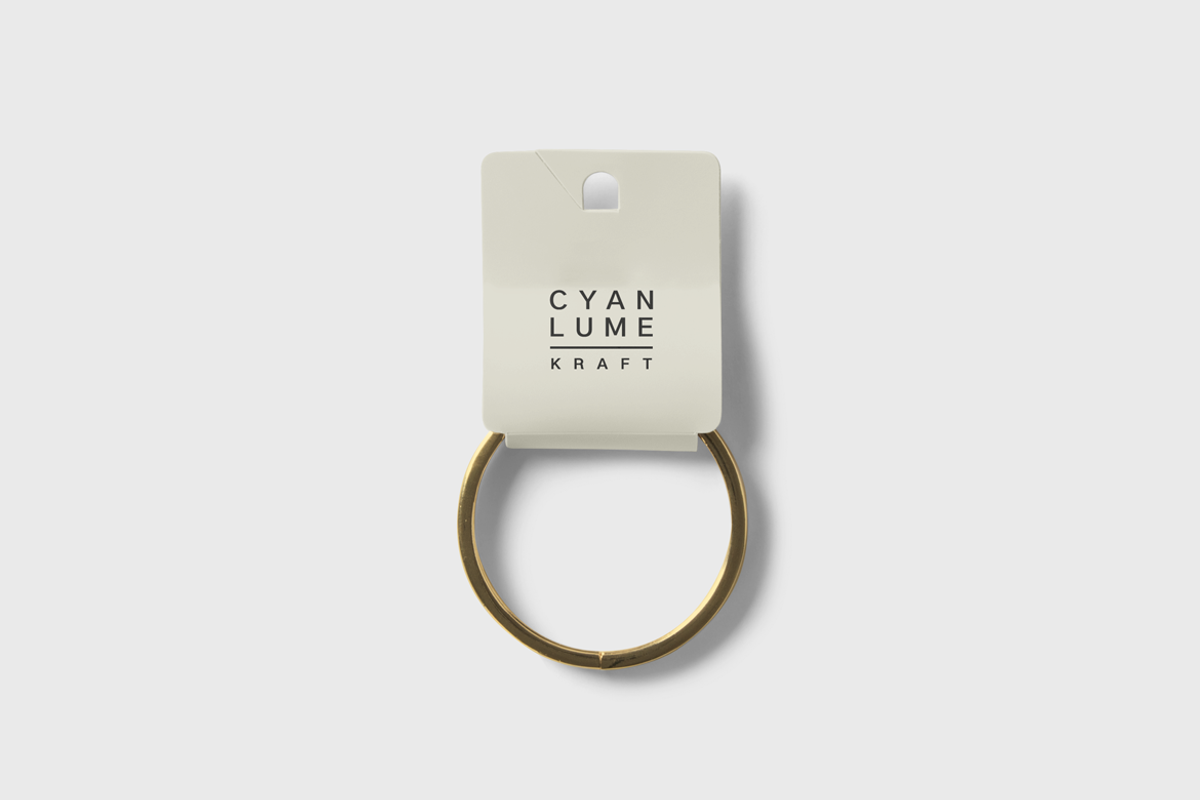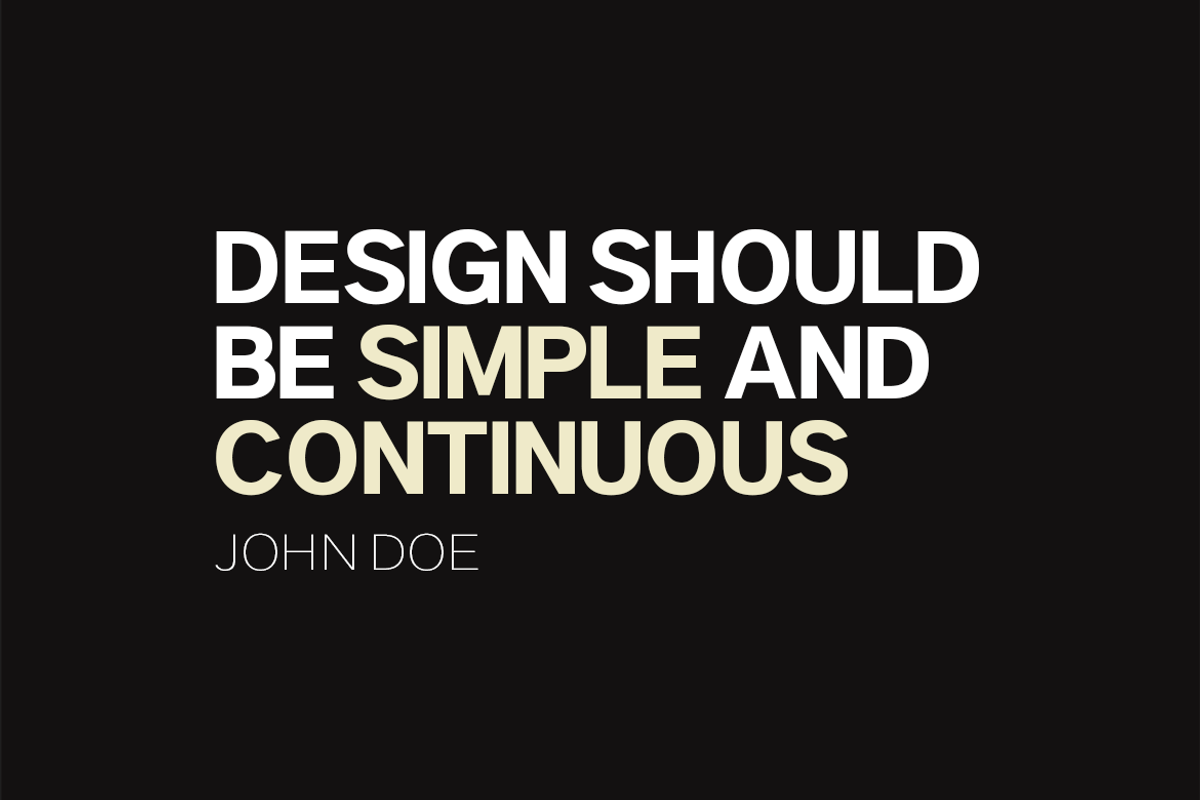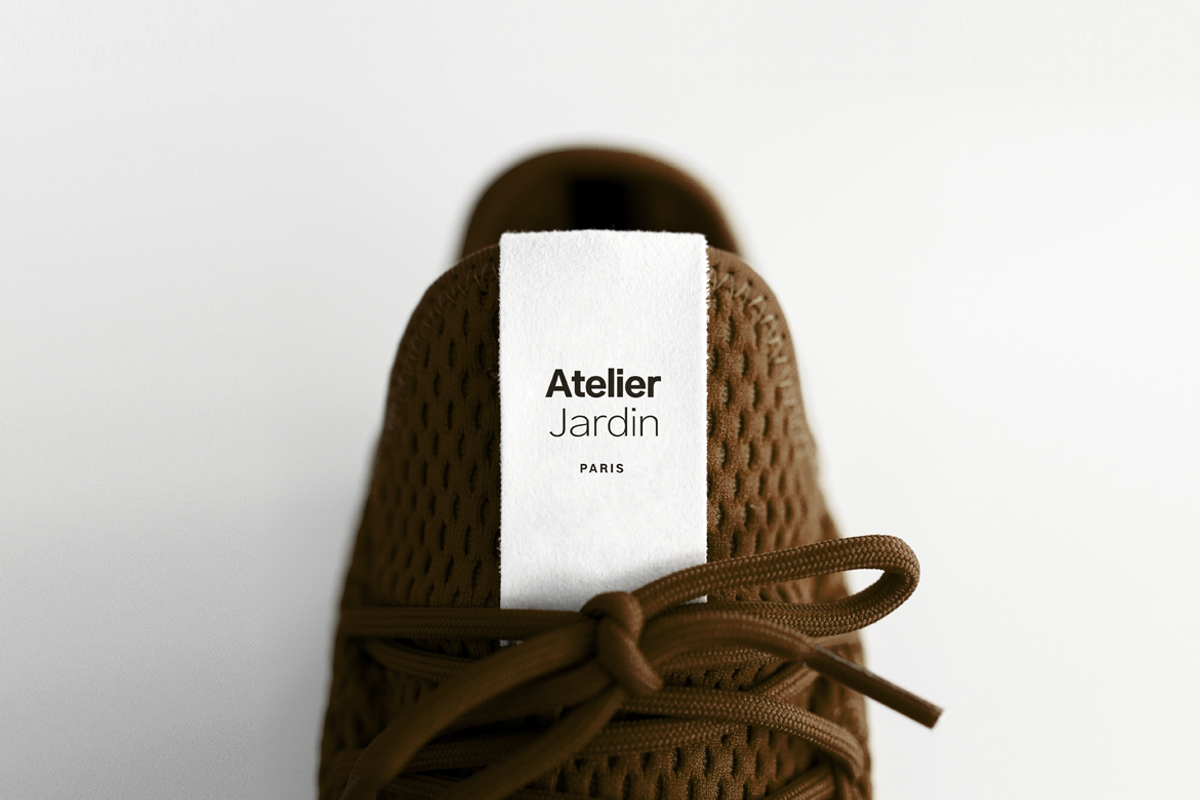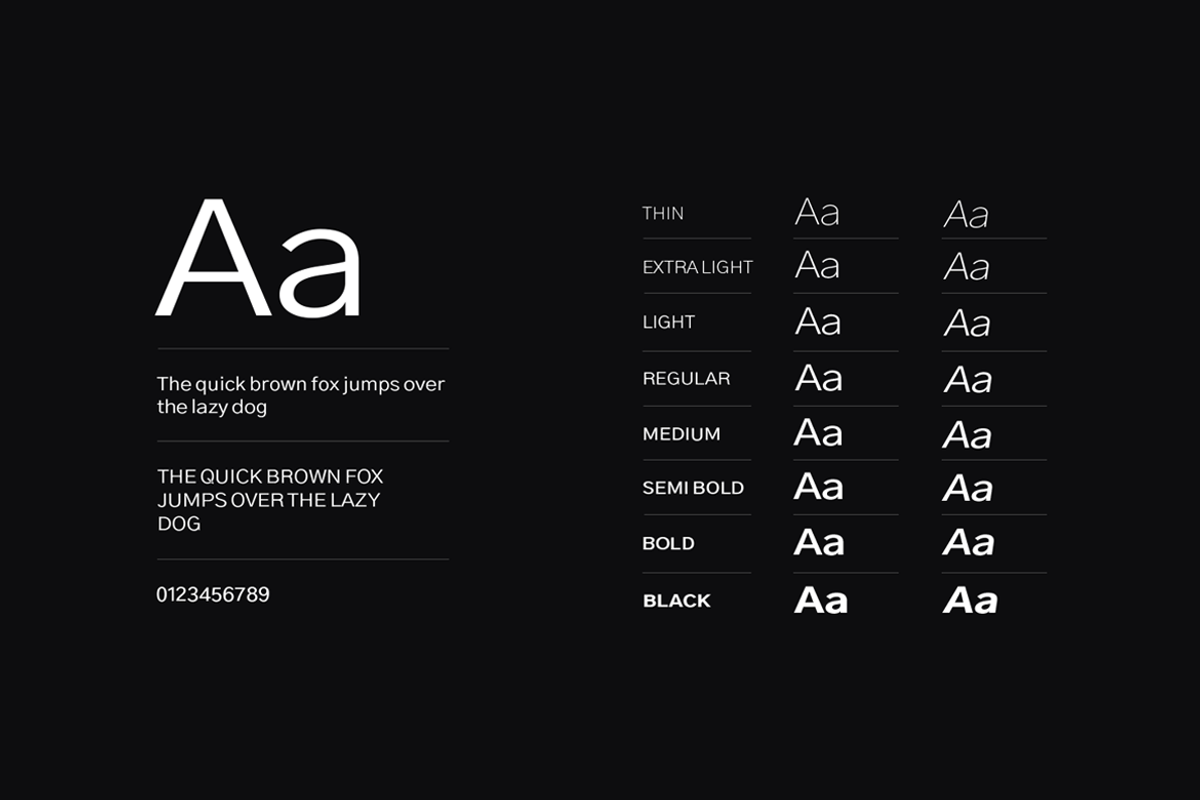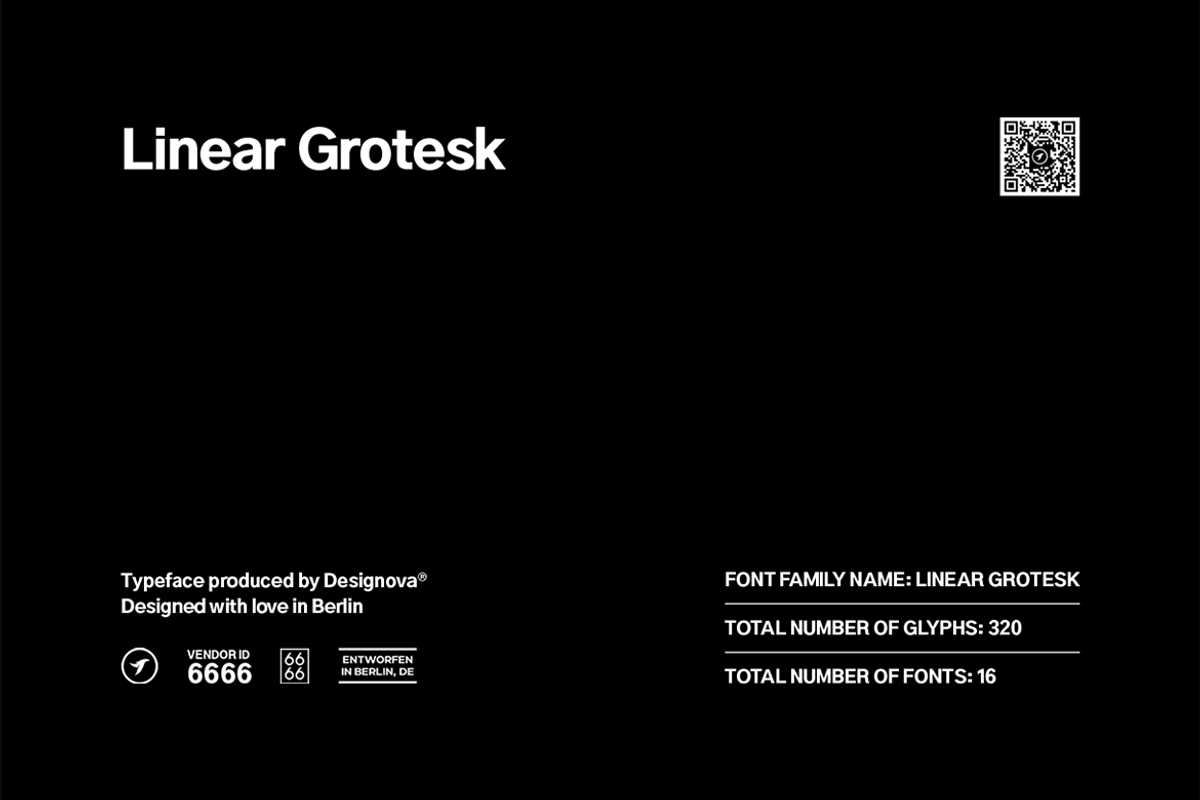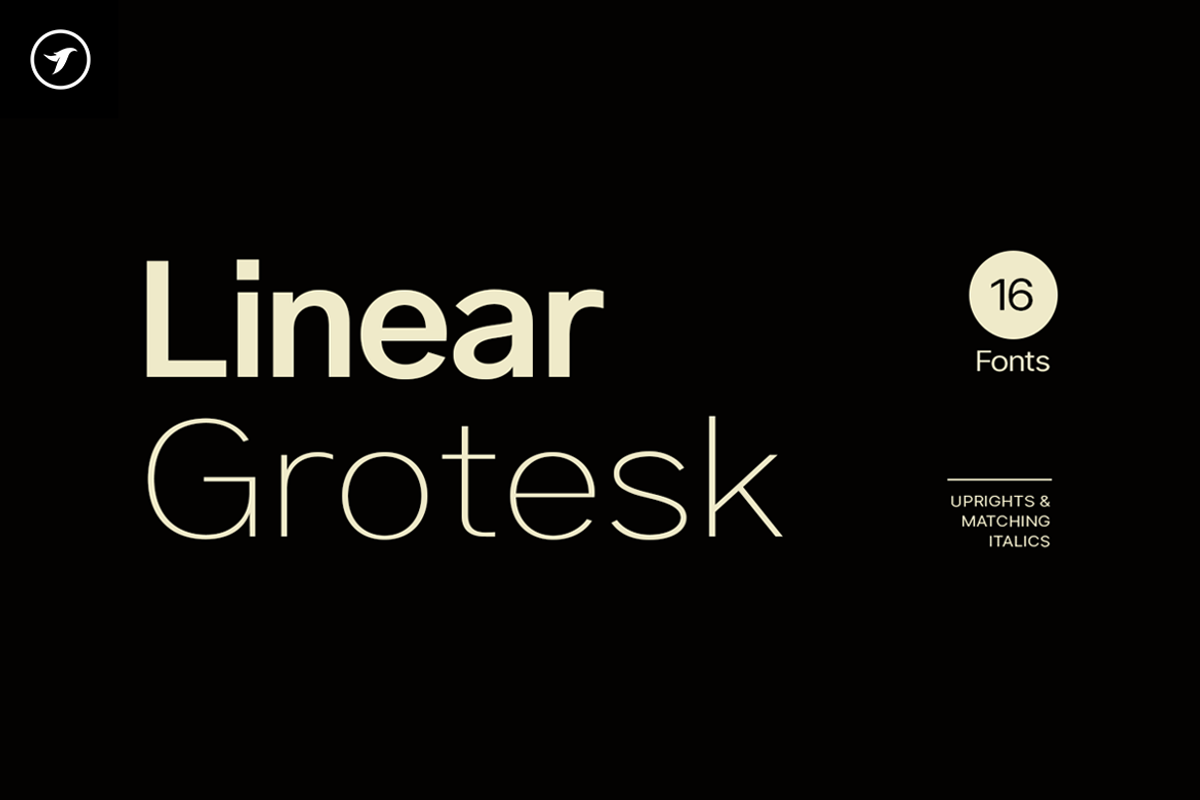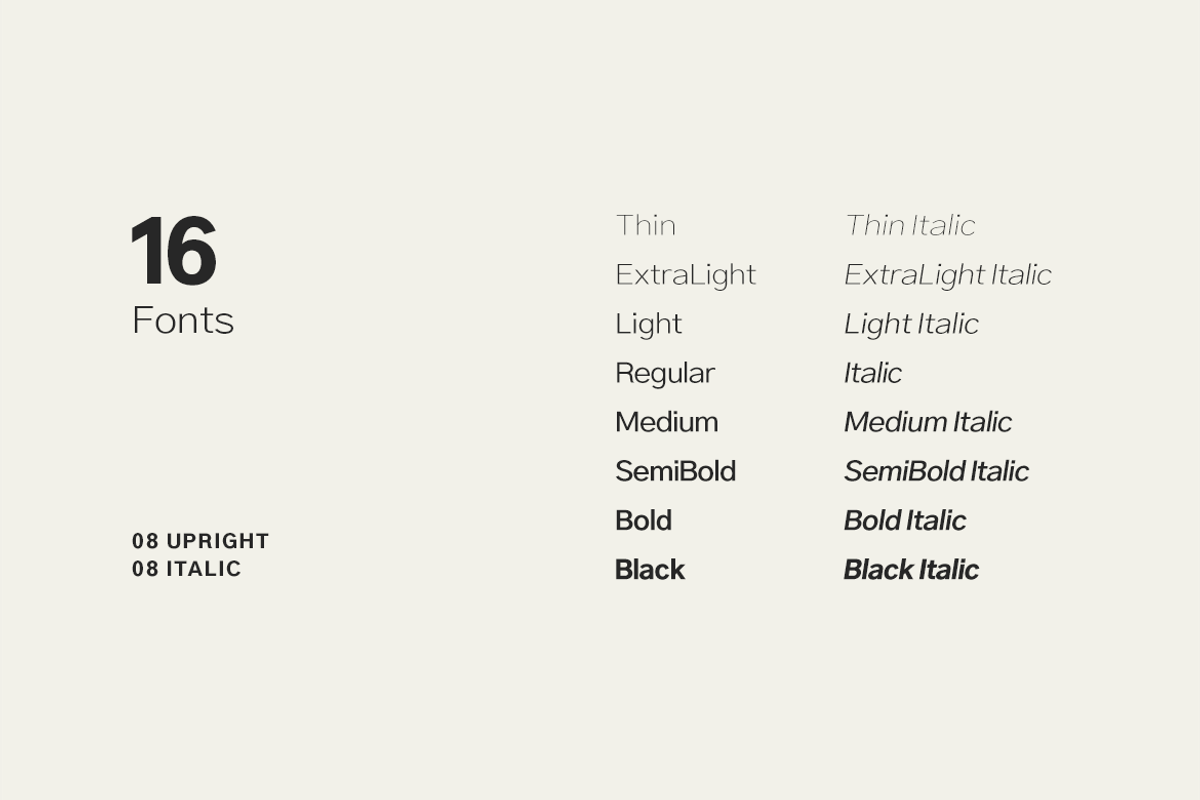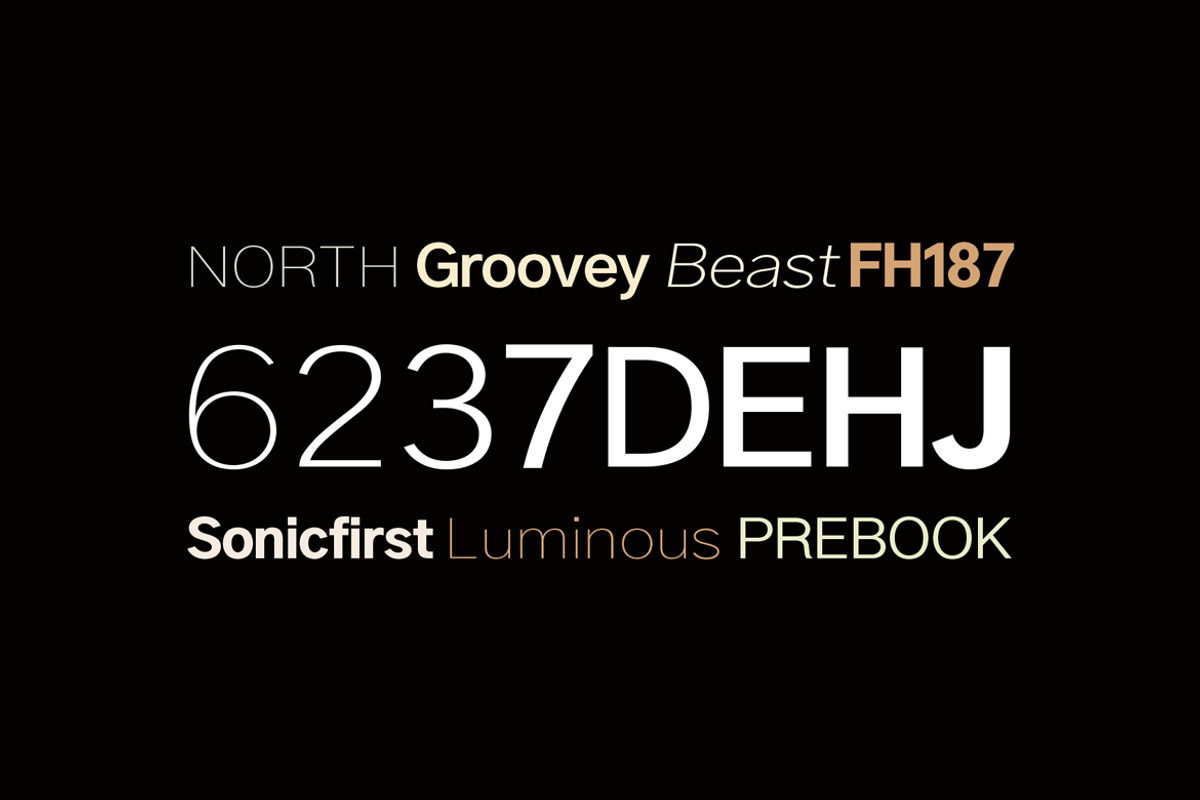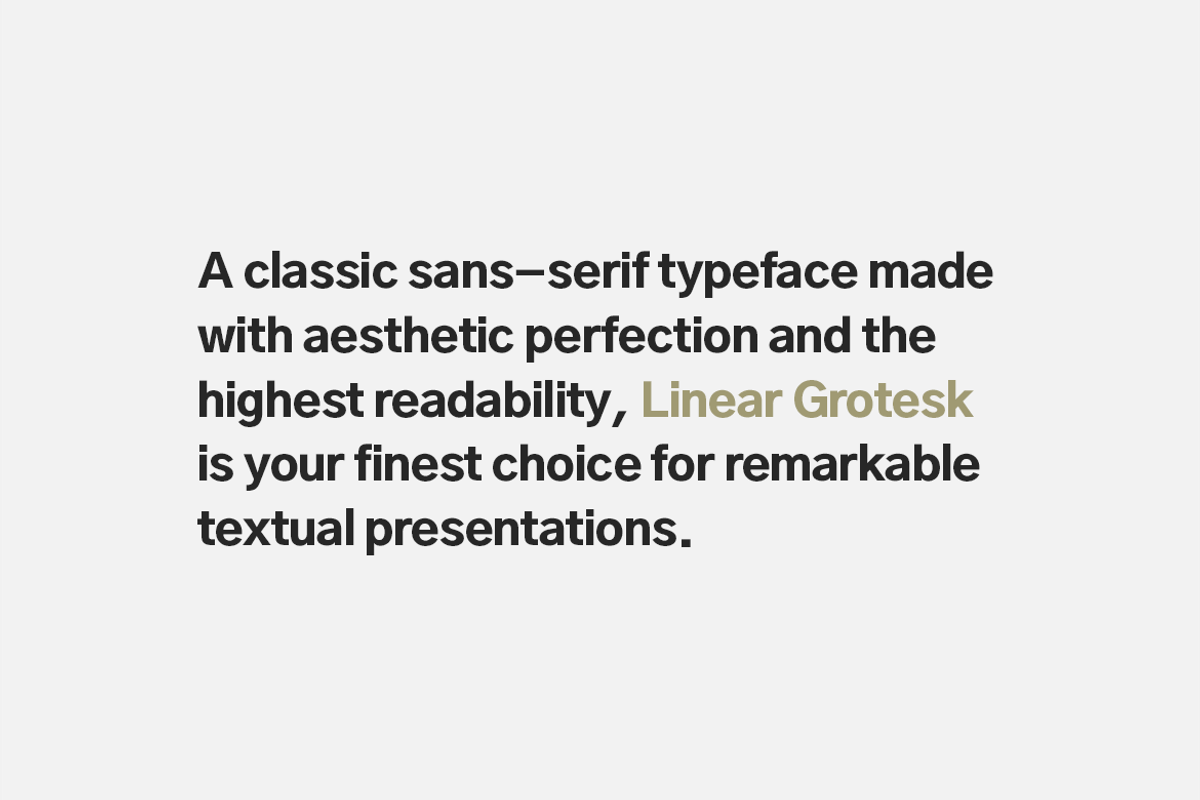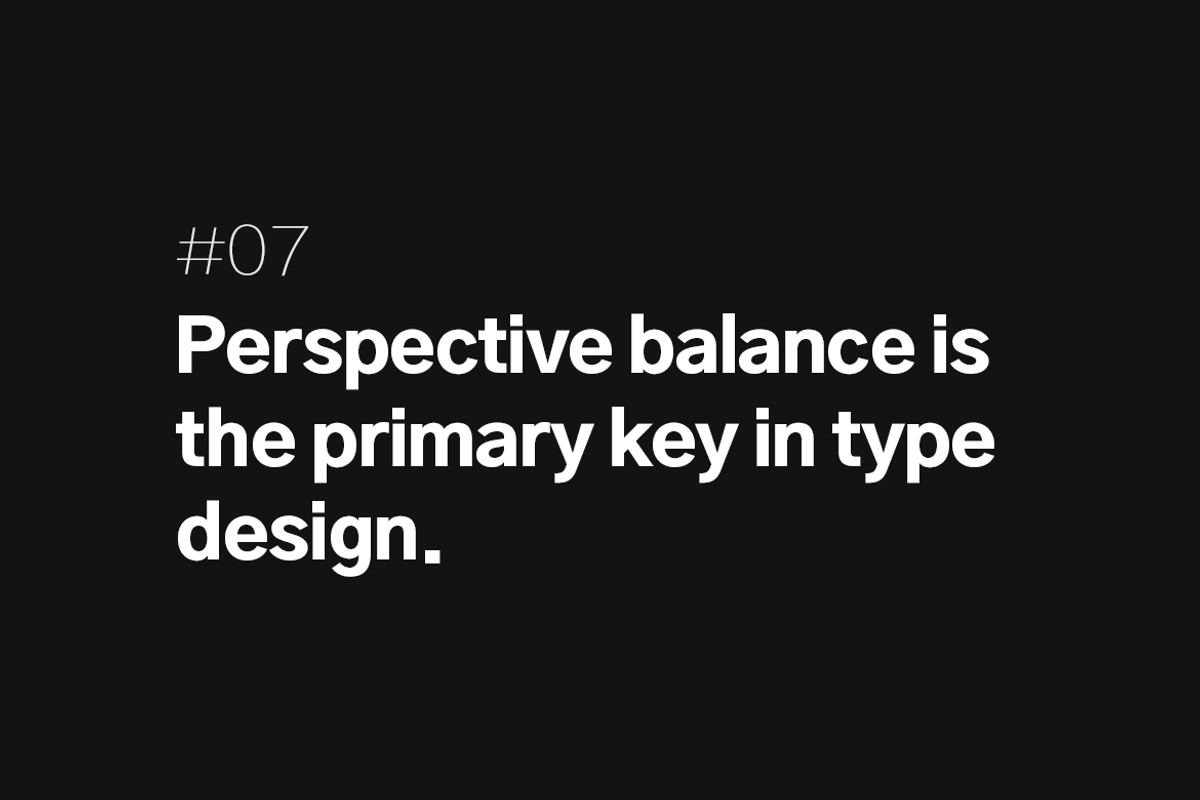
LINEAR GROTESK - Modern Font Family
ABOUT THE TYPEFACE:
A classic sans-serif typeface made with aesthetic perfection and the highest readability, Linear Grotesk is your finest choice for remarkable textual presentations. Created with a special focus on perfection and simplicity in typography, this typeface can transform your design projects to another level of visual appeal.
Linear Grotesk is a perfect choice for graphic design, text presentation, web design, print, and display use. The typeface can be an amazing option for beautiful branding, logo/logotype design projects, marketing graphics, banners, posters, signage, corporate identities as well as editorial design. Adding extra letter-spacing for the upright capital letters will make this font perfect for minimal headlines and logotypes as shown in promo images here.
Handcrafted and designed with powerful OpenType features in mind, each weight includes extended language support with Western European, Central European, and South Eastern European sets. A total of 320 glyphs are available.